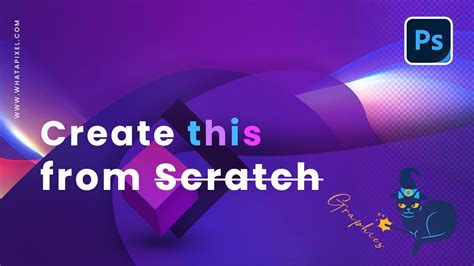
Unlock the Secrets of PNG Fonts: How to Create Jaw-Dropping Visuals!
What Are PNG Fonts?
PNG fonts, also known as vector fonts, are a type of digital font that is created using vector graphics. This type of font is often used in web design, graphic design, and digital art. They are highly customizable, allowing users to easily create stunning visuals that can be used in a variety of contexts. PNG fonts are different from traditional web fonts, as they are not limited to a specific size or style.
Benefits of PNG Fonts
PNG fonts offer a number of advantages over traditional web fonts. They are easy to use, as they can be quickly and easily customized to fit any design. Additionally, they are often higher quality than traditional web fonts, as they are produced with vector graphics. This means that the text will look crisp and clear on any device or screen size. They are also more versatile than traditional web fonts, as they can be used in a variety of contexts, such as logos, posters, and other visual elements.
How to Create Jaw-Dropping Visuals with PNG Fonts
Creating jaw-dropping visuals with PNG fonts is easier than ever. All you need to do is select a font that you like and customize it to fit your needs. PNG fonts come with a variety of customization options, such as color, size, and style. You can also add effects to your font, such as shadows, outlines, and gradients. Once you have created your font, you can then use it in any design project.
Tips for Creating Stunning Visuals with PNG Fonts
Creating stunning visuals with PNG fonts is easy, but there are a few tips to keep in mind. First, make sure to choose a font that is easy to read and understand. Additionally, make sure to use colors that are complementary to each other. Finally, take your time and experiment with different fonts and effects until you find the perfect combination for your project.
Example of Jaw-Dropping Visual with PNG Fonts
Here is an example of a jaw-dropping visual created with PNG fonts. This example uses a font called “Geometric Sans Serif” and is customized with a vibrant blue color, a subtle shadow, and a bold outline. This combination creates a visually striking design that will grab the attention of any viewer.
The Benefits of Using PNG Fonts
Using PNG fonts is an excellent way to create visuals that stand out from the crowd. Not only are they easy to use, but they also offer a high level of customization, allowing you to create visuals that are truly unique. Additionally, PNG fonts are versatile, as they can be used in a variety of contexts, from logos to posters and more. Finally, they are often of higher quality than traditional web fonts, allowing you to create visuals that look crisp and clear on any device or screen size.
Points of View
From my own experience, I can confidently say that PNG fonts are an invaluable tool for any designer. Not only are they easy to use, but they also offer a high level of customization, allowing you to create visuals that are truly unique. Additionally, they are often of higher quality than traditional web fonts, allowing you to create visuals that look crisp and clear on any device or screen size.
With PNG fonts, you can create stunning visuals that will grab the attention of any viewer. Whether you are creating logos, posters, or any other type of visual element, PNG fonts are a great way to make your designs stand out from the crowd. So don’t be afraid to experiment and unlock the secrets of PNG fonts to create jaw-dropping visuals!